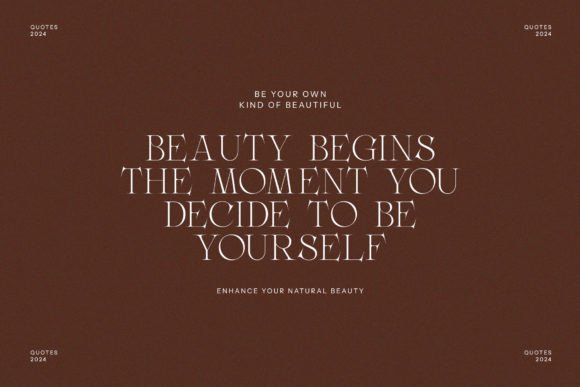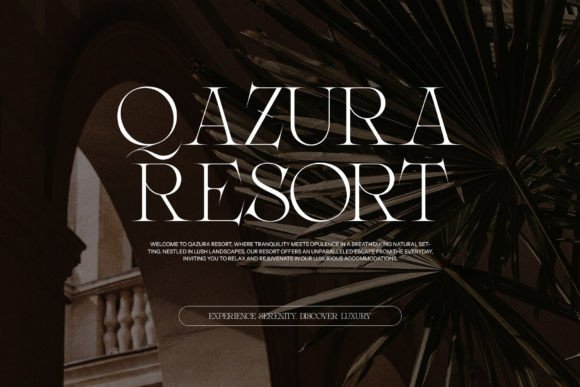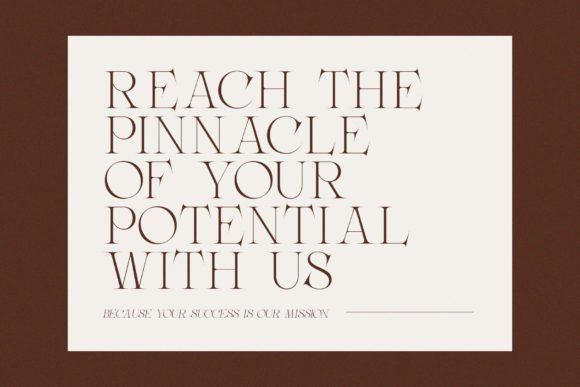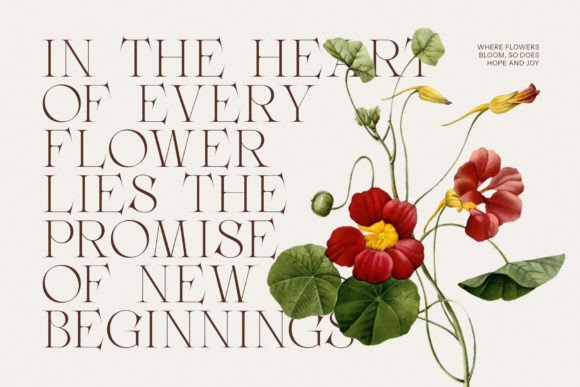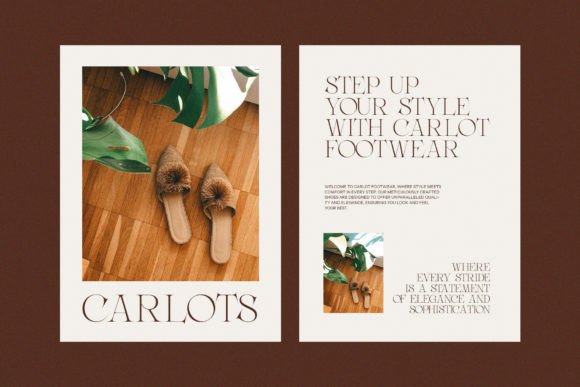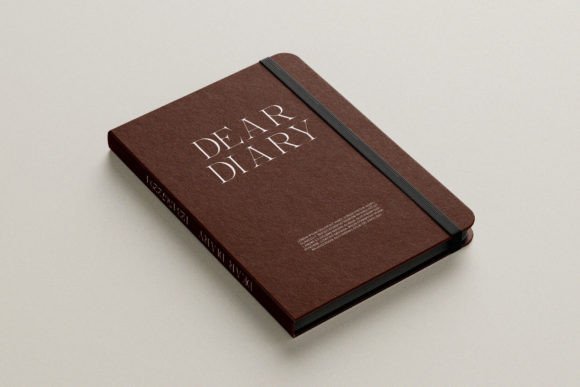
Faginta Font: Elevate Your Designs with Elegance and Luxury
In the world of design, typography plays a crucial role in conveying the tone and personality of a brand. When it comes to creating a lasting impression, a well-crafted font can make all the difference. Introducing Faginta Font, a sophisticated and elegant serif font designed to meet the demands of modern branding and logo design.
The Essence of Faginta Font
Faginta Font is a masterpiece of typographic design, crafted with precision and attention to detail. Its serif design exudes a sense of luxury and refinement, making it perfect for high-end branding projects, logos, and advertisements. The font’s classic and timeless feel ensures that it will remain relevant for years to come, providing a solid foundation for your design endeavors.
Unleash Your Creativity with Faginta Font
Faginta Font is incredibly versatile, making it suitable for a wide range of design applications. Whether you’re working on branding projects, social media posts, labels, product packaging, or wedding designs, this font is sure to impress. Its high readability level ensures that your message is conveyed clearly and effectively, regardless of the context.
Key Features of Faginta Font
- Elegant and Classy Design: Faginta Font boasts a sophisticated serif design that adds a touch of luxury to any project.
- High Readability Level: The font’s clear and precise design ensures that your message is conveyed with ease, making it perfect for body text and headings.
- Versatile and Adaptable: Faginta Font can be used for a wide range of design applications, from branding and logos to social media posts and product packaging.
- Timeless and Classic: The font’s classic design ensures that it will remain relevant for years to come, providing a solid foundation for your design endeavors.
Why Choose Faginta Font?
In today’s competitive design landscape, it’s essential to stand out from the crowd. Faginta Font offers a unique combination of elegance, luxury, and versatility, making it the perfect choice for designers and crafters looking to elevate their designs. With Faginta Font, you can:
- Create stunning branding projects that exude luxury and sophistication.
- Design eye-catching logos that leave a lasting impression.
- Develop cohesive visual identities that reflect your brand’s personality.
- Enhance your social media presence with elegant and engaging content.
Tips for Using Faginta Font
To get the most out of Faginta Font, here are some tips to keep in mind:
- Pair it with contrasting fonts: Combine Faginta Font with sans-serif fonts or script fonts to create visual interest and hierarchy.
- Experiment with font sizes: Use Faginta Font in various sizes to create a clear visual hierarchy and emphasize key messages.
- Pay attention to spacing: Ensure that your text is well-spaced to maintain readability and aesthetic appeal.
Faginta Font is a game-changer for designers and crafters looking to elevate their designs with elegance and luxury. Its versatility, readability, and timeless design make it the perfect choice for a wide range of design applications. Whether you’re working on branding projects, logos, or social media posts, Faginta Font is sure to impress. So why wait? Discover the power of Faginta Font and take your designs to the next level.